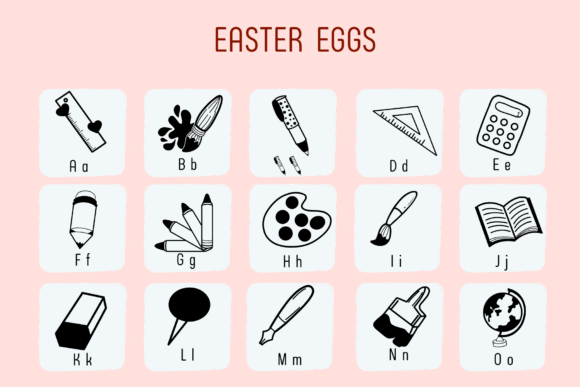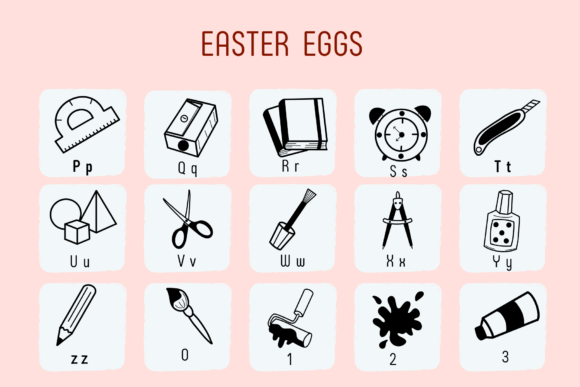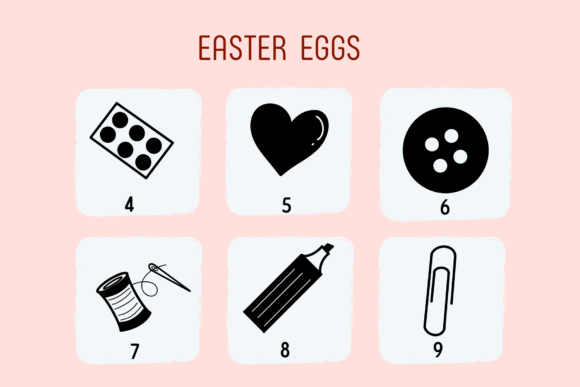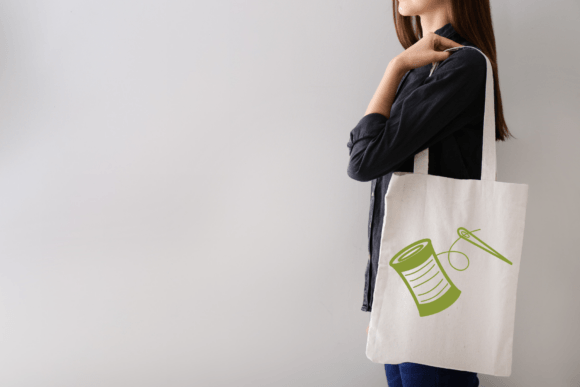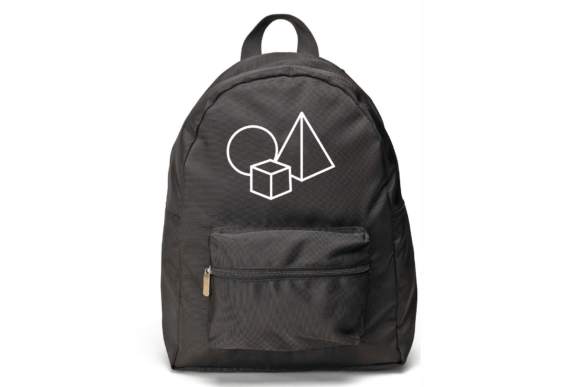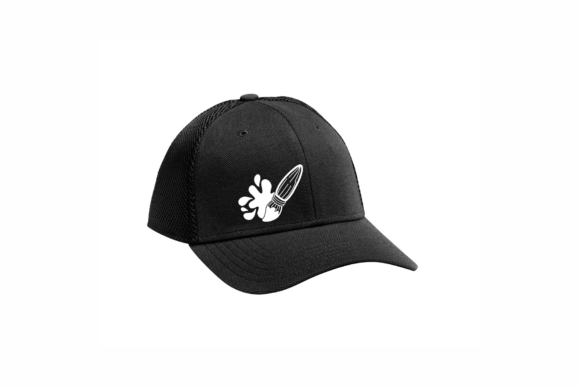
Unlocking Creativity with the 100 Days of School Font
The 100 Days of School Font, also known as the 100 Days of School Dingbats Font, is a delightful collection of school-themed icons designed to add a playful and educational touch to various creative projects. This charming font features an assortment of illustrations, including books, pencils, rulers, and scissors, making it an ideal choice for designing engaging educational materials.
What is the 100 Days of School Font?
The 100 Days of School Font is a unique dingbat font that offers a wide range of school-themed icons, perfect for creating visually appealing and educational content. Unlike traditional fonts, dingbat fonts use images instead of letters, allowing designers to add a creative twist to their projects. This font is specifically designed to celebrate the joy of learning and can be used to create a variety of materials, from posters and worksheets to scrapbooks and classroom decorations.
Key Features of the 100 Days of School Font
- School-themed icons: The font features a diverse collection of icons, including books, pencils, rulers, scissors, and many more, all with a school theme.
- Playful and educational: The illustrations are designed to add a playful touch to educational projects, making learning more engaging and fun.
- Versatile: The 100 Days of School Font can be used for a wide range of projects, from posters and worksheets to scrapbooks and classroom decorations.
Uses of the 100 Days of School Font
The 100 Days of School Font is perfect for a variety of creative projects, including:
- Posters: Create eye-catching posters to celebrate the 100th day of school or to promote literacy and learning.
- Worksheets: Add a playful touch to worksheets and activity sheets, making learning more engaging and fun.
- Scrapbooks: Use the font to create memorable scrapbook pages documenting school milestones and achievements.
- Classroom decorations: Design colorful classroom decorations, such as bulletin boards and banners, to create a welcoming and educational environment.
The 100 Days of School Font offers numerous benefits for designers and crafters, including:
- Inspiration: The font provides a unique and creative way to express ideas and showcase designs.
- Time-saving: The pre-designed icons save time and effort, allowing designers to focus on other creative aspects of their projects.
- Customization: The font can be customized to fit specific design needs, making it easy to create unique and personalized projects.
Tips and Tricks for Using the 100 Days of School Font
To get the most out of the 100 Days of School Font, consider the following tips and tricks:
- Experiment with different sizes and colors: Play with different sizes and colors to add visual interest to your projects.
- Combine with other fonts: Mix and match the 100 Days of School Font with other fonts to create unique and engaging designs.
- Use in digital and print projects: The font can be used in both digital and print projects, making it versatile and convenient.
The 100 Days of School Font is a delightful collection of school-themed icons perfect for creative educational projects. With its playful and educational illustrations, this dingbat font is ideal for designing posters, worksheets, scrapbooks, and classroom decorations. Whether you’re a designer or crafter, this font is sure to inspire and add a touch of creativity to your projects. So, unlock your creativity and get ready to celebrate the joy of learning with the 100 Days of School Font!